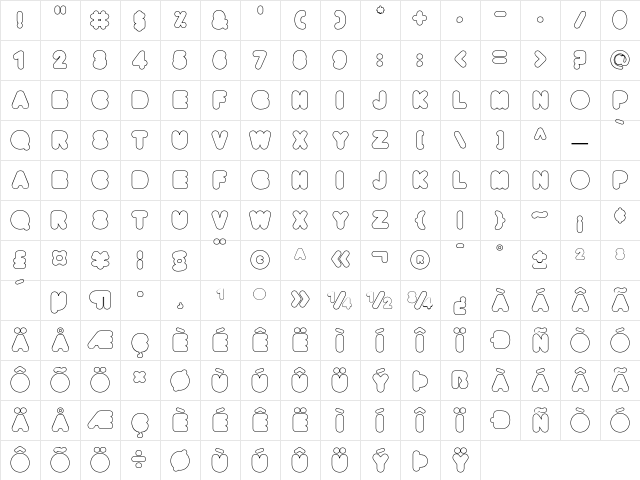
BAQRounded RegularOutline Free Font
BAQRounded RegularOutline
Style: RegularOutline
Foundry: Thinkdust
Designer: Alex Haigh
Year: 2015
BAQRounded Family
BAQRounded RegularOutline
Design Context for BAQRounded
BAQRounded is built around its visual character rather than neutral utility - its distinctive forms are designed to make an impression at display sizes.
Font Pairing: Pair with a clean neutral sans-serif for body copy to let BAQRounded's character lead without overwhelming the composition.
Pro Tip: Use BAQRounded exclusively at display sizes - it was designed to be seen, not read at length. Let a neutral companion handle body copy.